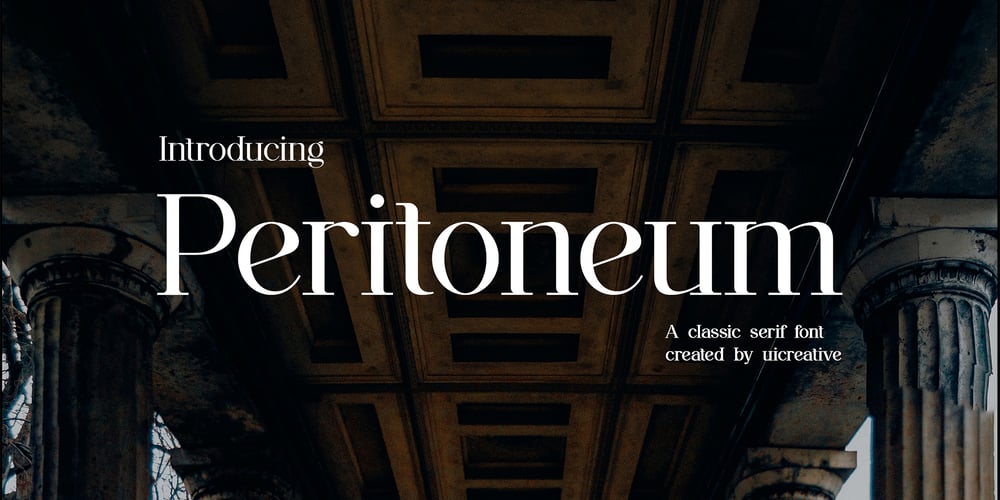
Pertoneum
Pertoneum font
Pertoneum Font Family was designed by Hero and published by UICreative. Pertoneum contains 1 styles and family package options. Introducing our new product the name Peritoneum Clasiss Serif Font. Modern Serif font that feels beautiful classy, elegant, and modern. This font is perfectly suited for a wide variety of projects, such as signature, stationery, logo, wedding, typography quotes, magazine or book covers, website headers, clothing, branding, packaging design, and more. Also for fashion-related branding or editorial design and displays both masculine and feminine qualities.